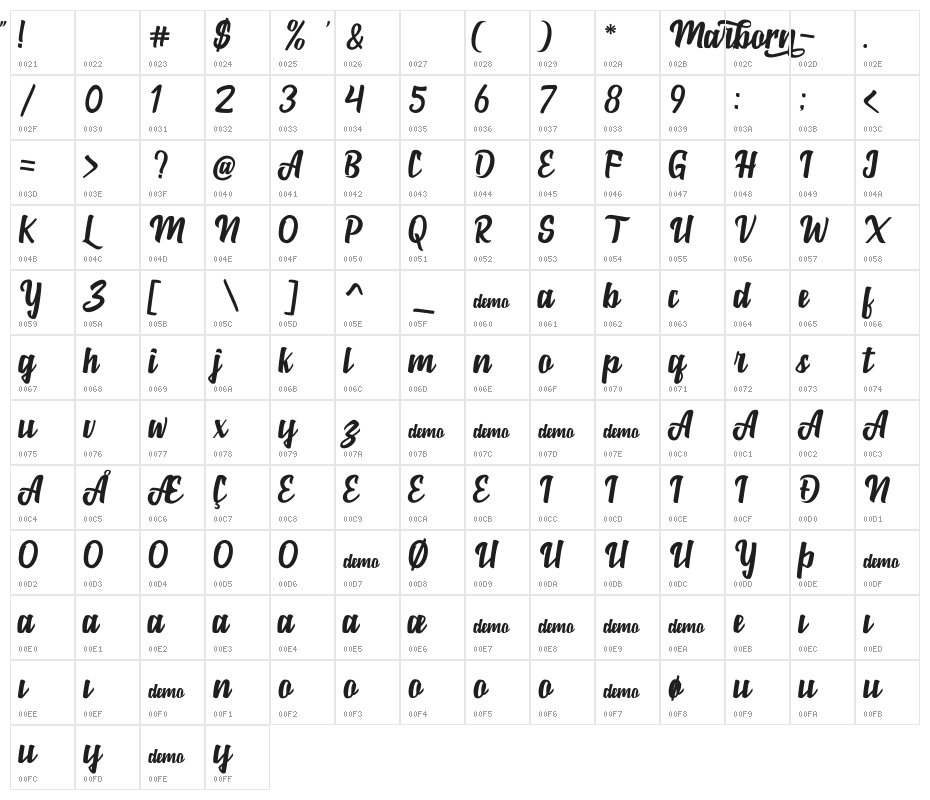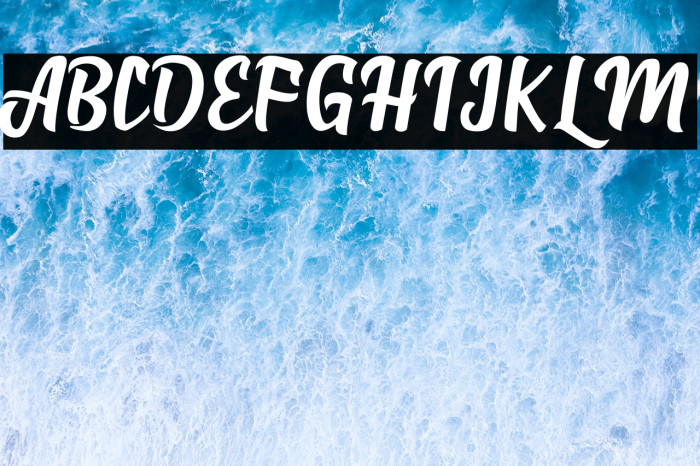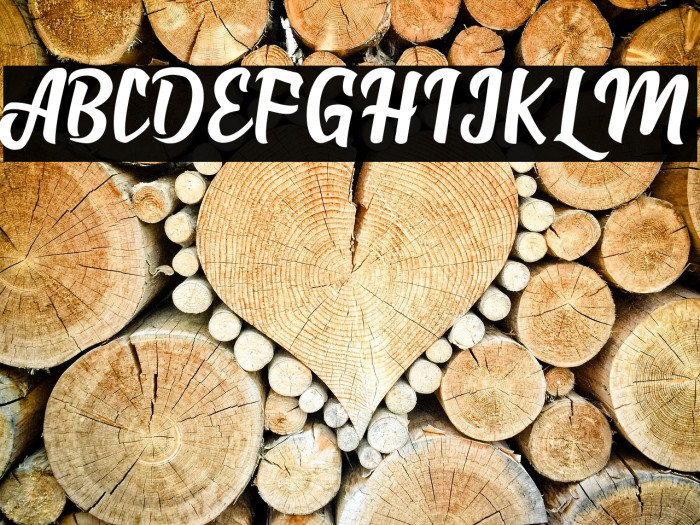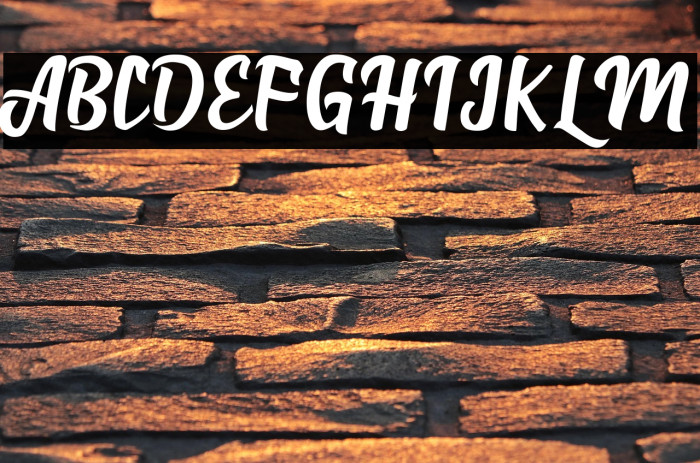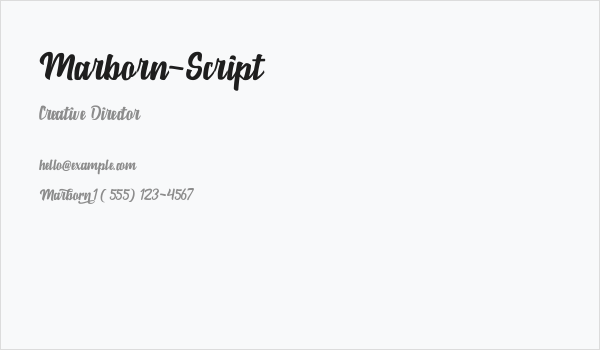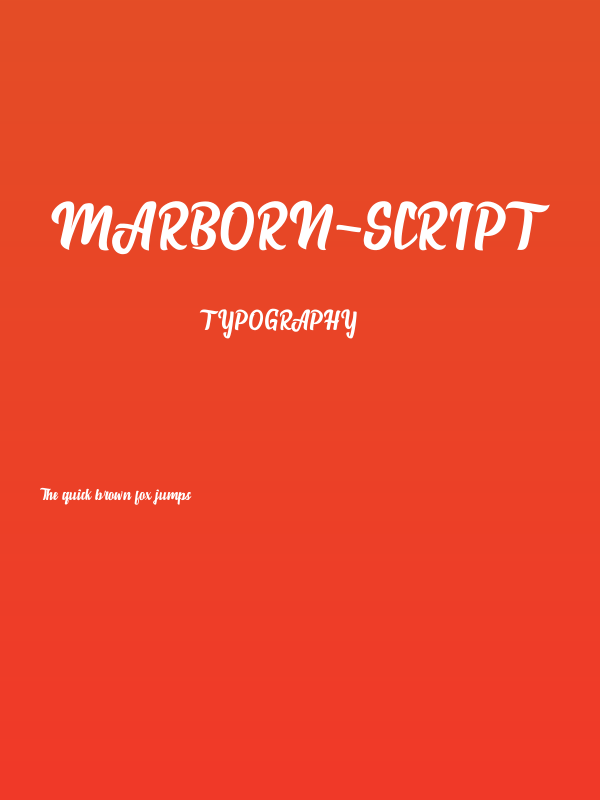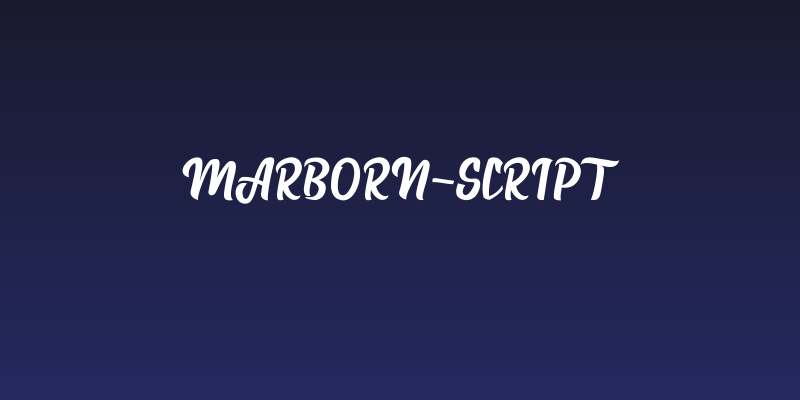
Marborn-Script Font
Marborn-Script Description
This font features a bold and flowing script style, characterized by its smooth, cursive strokes and elegant curves. The uppercase letters are slightly more upright, while the lowercase letters exhibit a more pronounced slant, adding to the dynamic and fluid appearance. The numbers and special characters maintain the same stylistic elements, ensuring consistency throughout. The font's design is reminiscent of traditional calligraphy, yet it maintains a modern touch with its clean lines and balanced proportions.
ContrastMedium
Overall StyleModern
Use CaseLogos, Headlines, Invitations
Proposed ProjectsIdeal for wedding invitations, branding projects, logo designs, and elegant stationery.